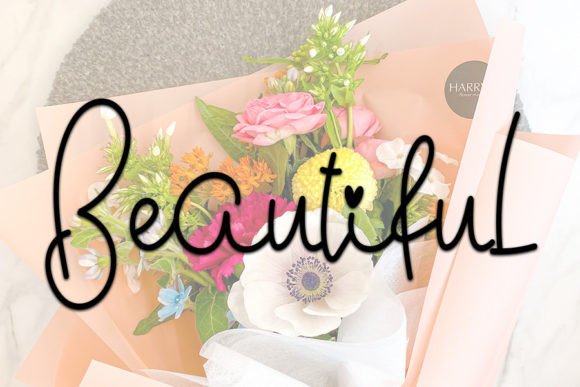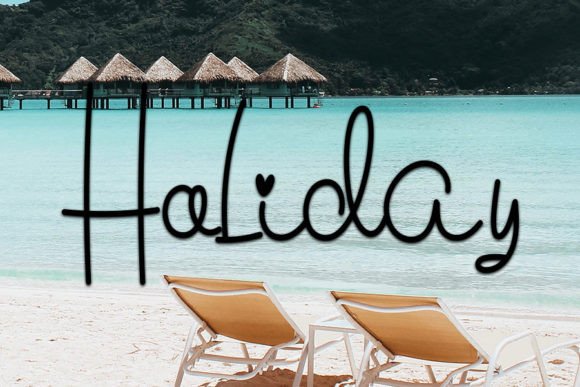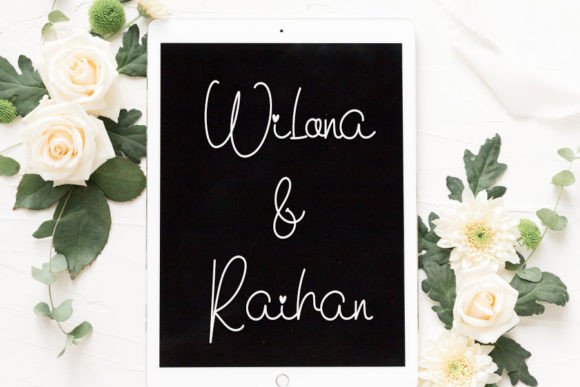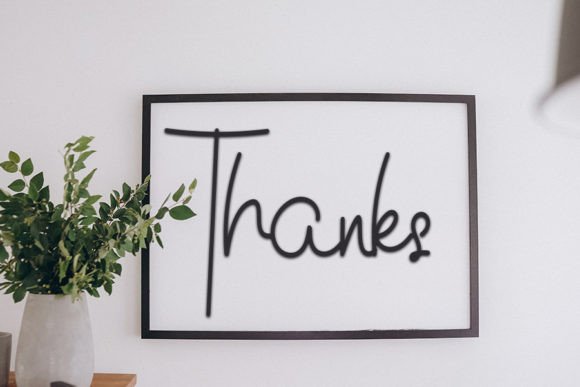
Wedding Font: The Perfect Calligraphic Touch for Unforgettable Moments
Capture the magic of special occasions with Wedding Font, a beautifully crafted handwritten typeface that blends neat precision with romantic elegance. Designed to make every word feel like a cherished keepsake.
Happily Ever After
Begins with beautiful typography
Why Wedding Font Stands Out
- Timeless Elegance: Classic calligraphic style that never dates
- Perfect Readability: Neat letterforms with artistic flair
- Romantic Versatility: From formal invites to casual signage
- Emotional Impact: Instantly elevates special occasion designs
Wedding Essentials
- Invitation suites
- Seating charts
- Programs & menus
Romantic Branding
- Bridal boutique logos
- Wedding planner materials
- Event stationery
Keepsake Designs
- Anniversary cards
- Love letter templates
- Photo book captions
Designer-Friendly Features
- Special Touches: Ligatures for flawless letter connections
- Perfect Pairings: Combines beautifully with Didot & Raleway
π Designer’s Secret: Use all-caps for names and dates to create elegant emphasis in invitations.
Make Every Word Unforgettable